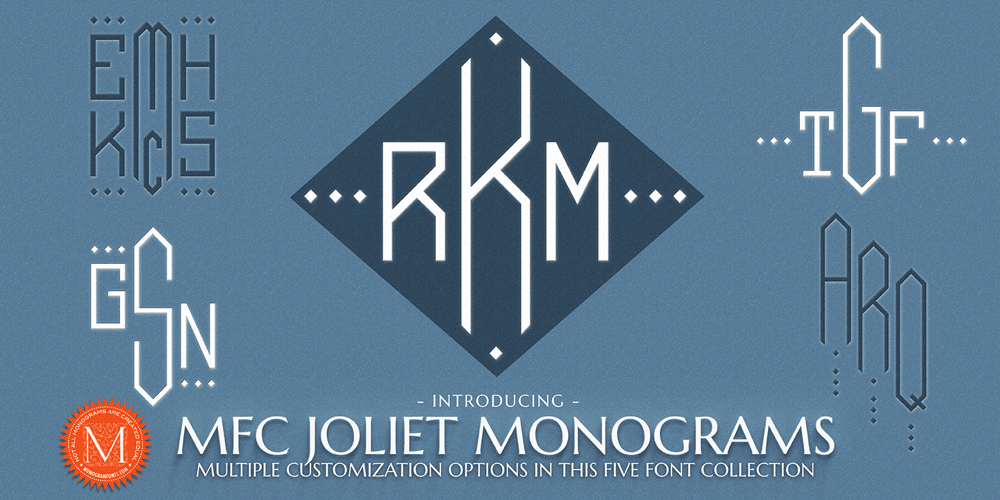
MFC Joliet Monogram
MFC Joliet Monogram font
MFC Joliet Monogram Font Family was designed by Jim Lyles, Brian J. Bonislawsky and published by Monogram Fonts Co.. MFC Joliet Monogram contains 5 styles and family package options. The source of inspiration for the MFC Joliet Monograms Collection is a vintage McCalls Kaumagraph Transfer that was capable of 5 styles of monograms. We’ve faithfully remastered these in each of the five typefaces in this collection, and in doing so, expanded the customization options further. MFC Joliet Monograms utilizes OpenType features to enable some of the various positioning aspects of these monograms. Please be sure to follow the instructions in the Guidebook per each monogram font for optimal results.